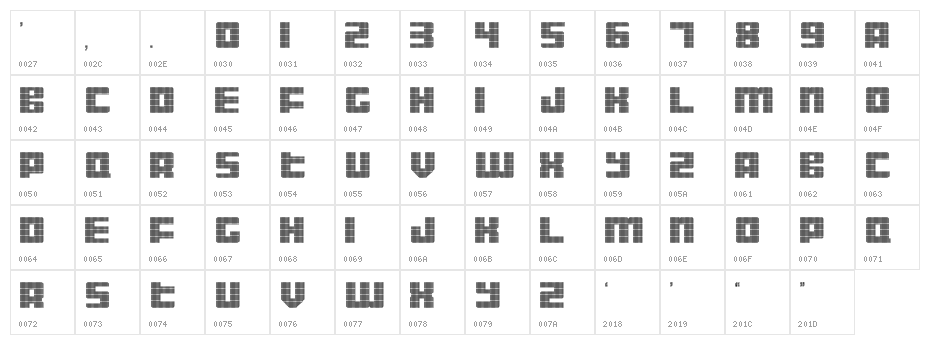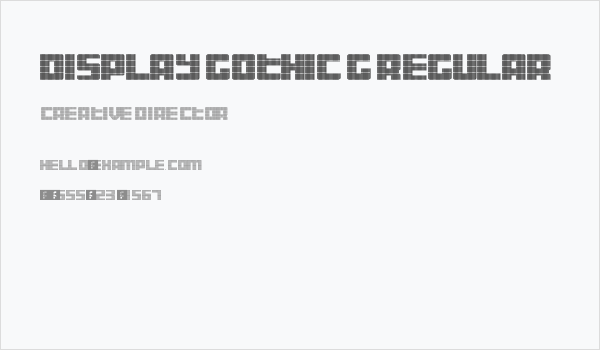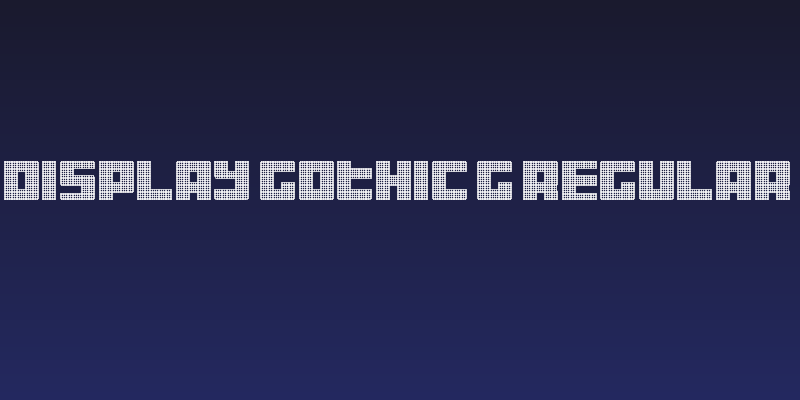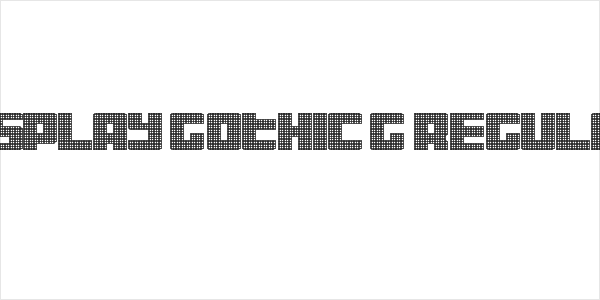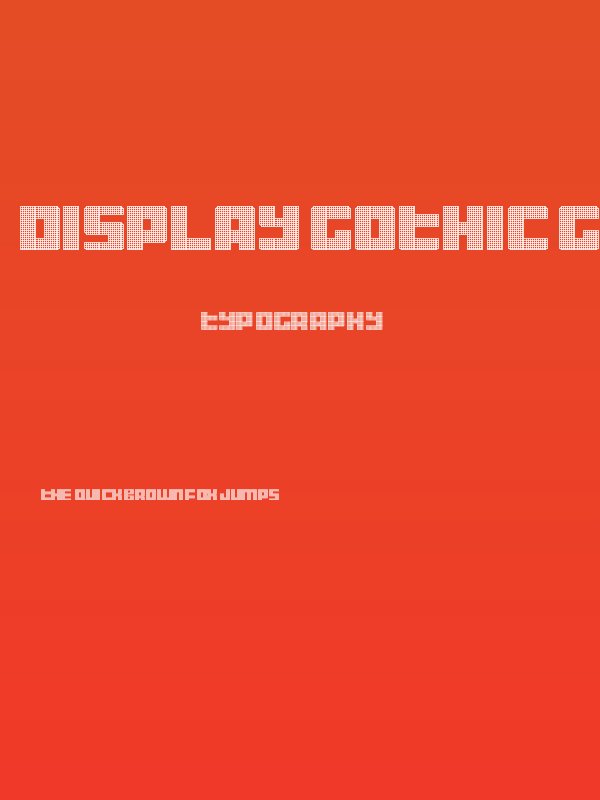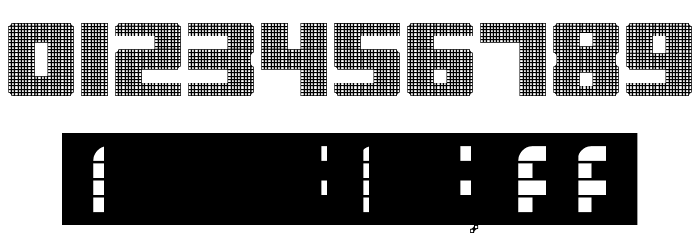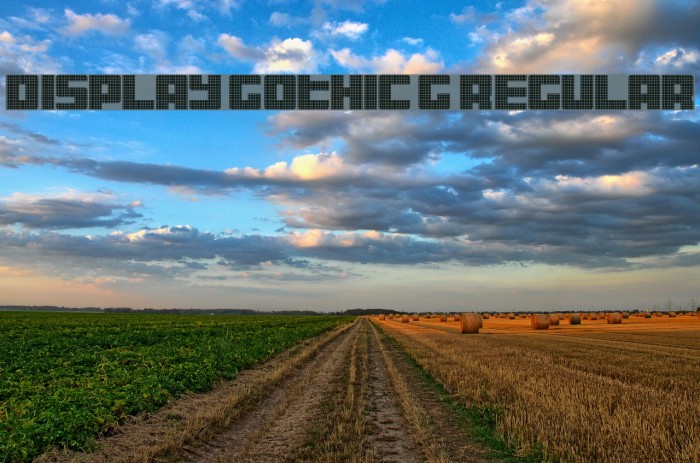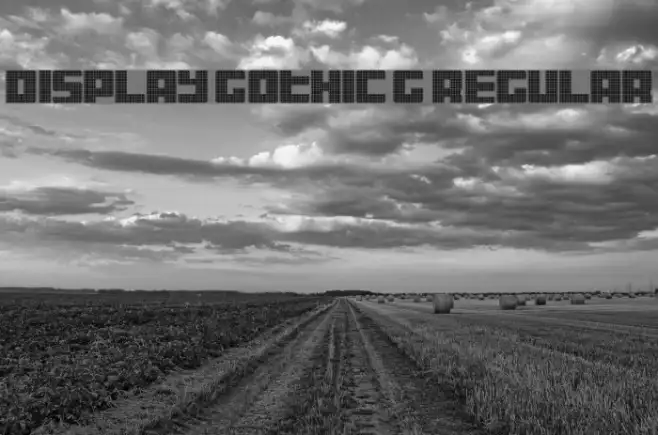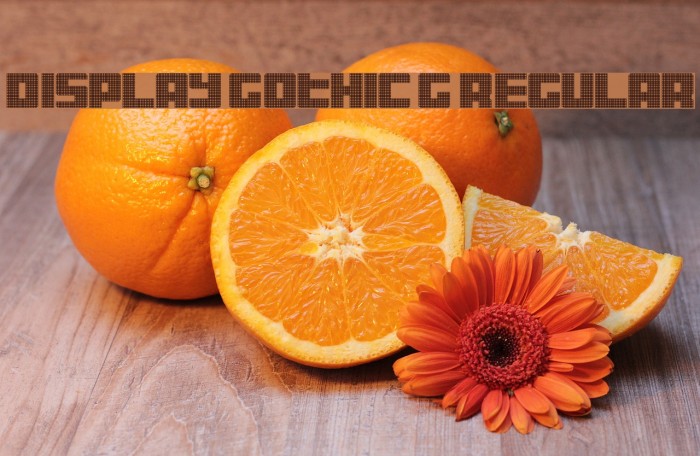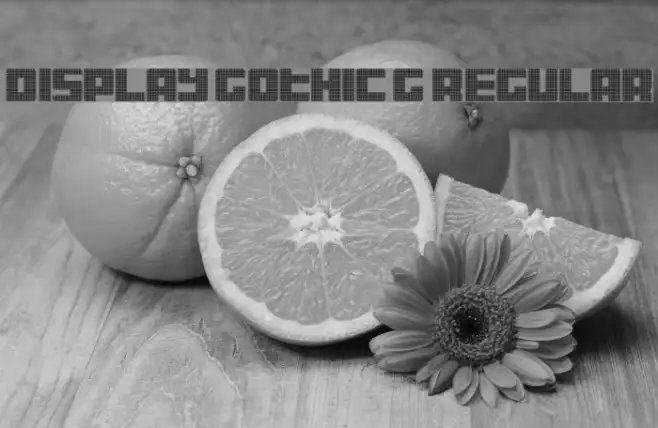
Display Gothic G Regular Font
Display Gothic G Regular Description
This font features a bold, geometric design with a distinct grid-like pattern that gives it a digital, pixelated appearance. The characters are uniformly structured, creating a cohesive and modern look. Each letter and number is composed of small, evenly spaced squares, which contribute to its unique style. The font's design is reminiscent of digital displays or LED screens, making it ideal for projects that require a futuristic or tech-inspired aesthetic. Its boldness ensures high visibility, while the uniformity of the grid pattern provides a sense of order and precision.
| Proposed Projects | Ideal for digital displays, tech-themed designs, video game interfaces, and modern branding projects. |